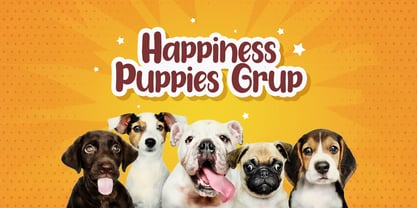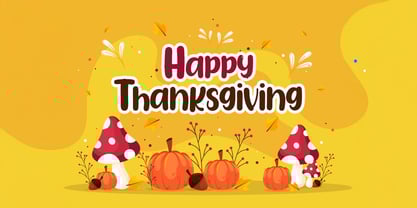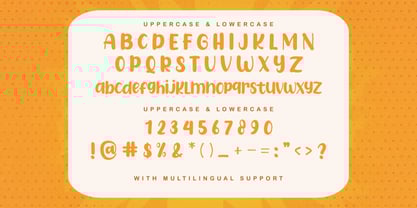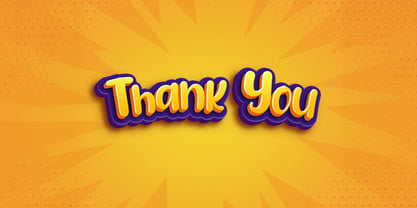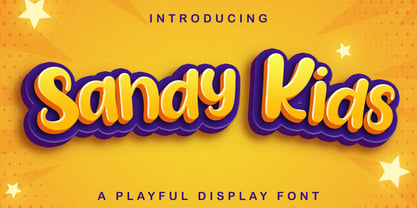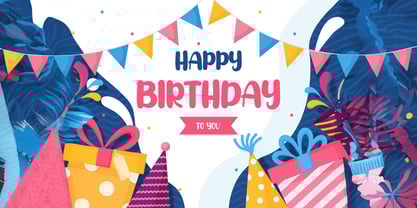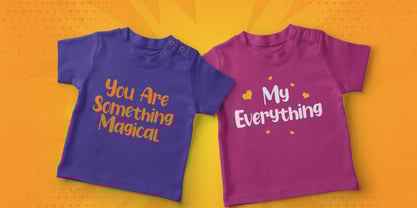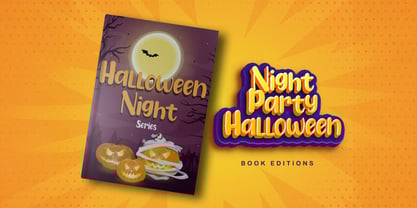
The Sandy Kids Font Family was designed by Virgiawan Listanto and published by Stringlabs Creative Studio. Sandy Kids contains 1 styles. More about this family
Sandy Kids is a delightful and energetic display font that brings a touch of fun and adventure to your designs. With its playful letterforms and sand-inspired textures, this font evokes a carefree, beachy vibe, perfect for projects aimed at children or anything with a lighthearted, whimsical feel. Whether you’re working on kids’ products, summer events, or playful branding, Sandy Kids adds a cheerful, lively spirit to any design.
Sandy Kids